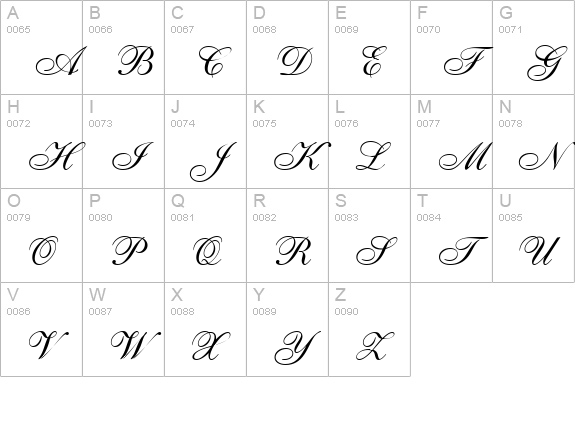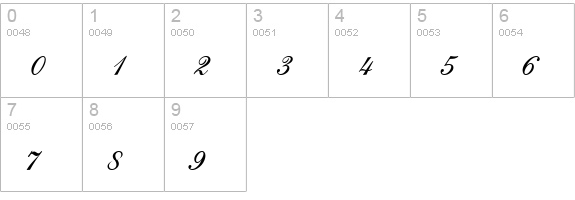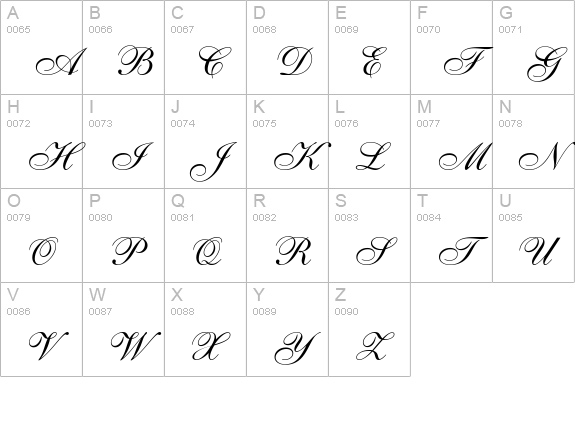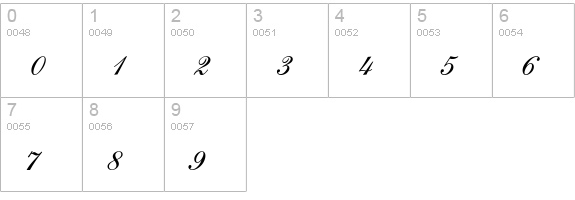
Caligraf W font is a stunning and elegant typeface that exudes sophistication and charm. With its graceful curves and delicate strokes, this font is perfect for adding a touch of refinement to any project. Whether you're designing wedding invitations, branding materials, or elegant packaging, Caligraf W font will elevate your designs to the next level. What's even better is that Caligraf W font is available for free download at FontsMarket.com. Yes, you heard that right - this exquisite font can be yours at no cost! Don't miss out on the opportunity to enhance your designs with the timeless beauty of Caligraf W font. Download it today and start creating stunning visuals that will leave a lasting impression.